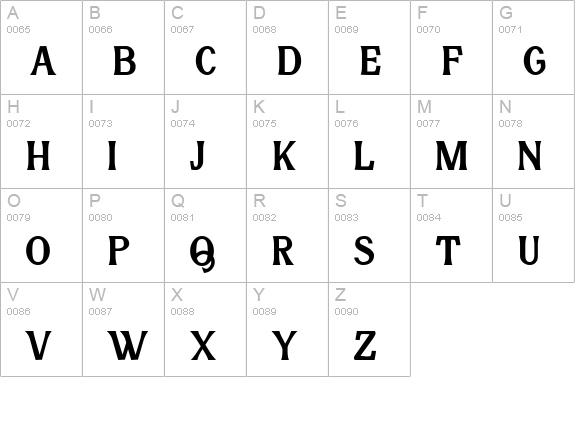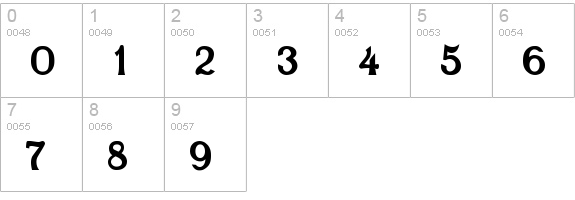
DavidFarewell Bold Font Details
DavidFarewell Bold is a strong, high-contrast variant in the DavidFarewell typeface family \xE2\x80\x94 well suited to headlines, attention-grabbing titles, and strong calls-to-action.
DavidFarewell Bold font is a striking and modern typeface that exudes confidence and sophistication. Its bold and stylish design makes it perfect for creating eye-catching headlines, titles, and logos. The clean lines and distinct letter shapes of DavidFarewell Bold add a touch of elegance to any design project. This versatile font is suitable for a wide range of applications, from branding and advertising to packaging and web design. Whether you're looking to make a bold statement or add a touch of flair to your project, DavidFarewell Bold is sure to make a lasting impression. Best of all, DavidFarewell Bold font is available for free download at FontsMarket.com. This means you can start using this stunning font in your projects right away, without having to worry about any additional costs. Don't miss out on the opportunity to elevate your designs with the bold and beautiful DavidFarewell Bold font.